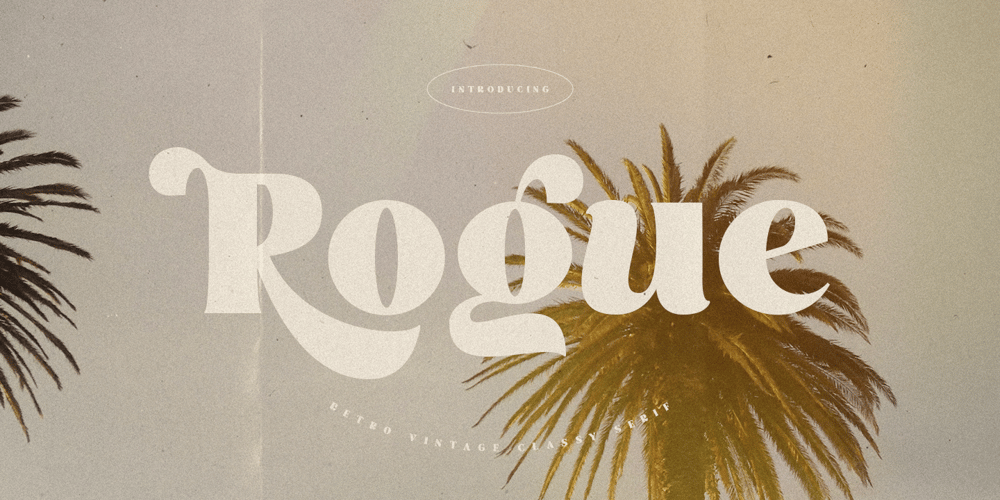
Rogue Style Font Family was designed by Zamroni Hamzah and published by Sensatype Studio. Rogue Style contains 2 styles and family package options. An Retro Vintage Classy Serif font that we created special for elegant branding needs, with extra alternates in unique shape will be ready to add value of your brand.Rogue Retro Vintage Classy Serif ready with: Any options to get creative variations (combination of Alternate characters) Preview as a inspirations that you can do with Rogue font Ready with Lowercase and Uppercase characters Wish you enjoy our font. ๐